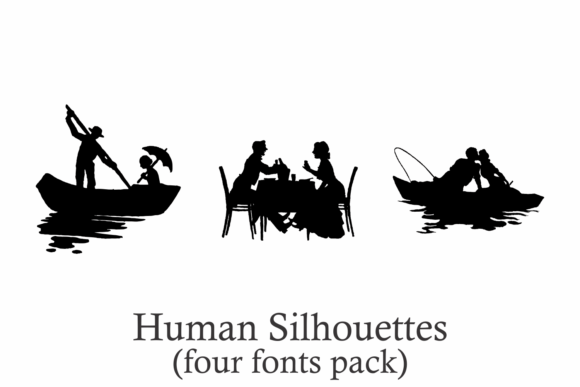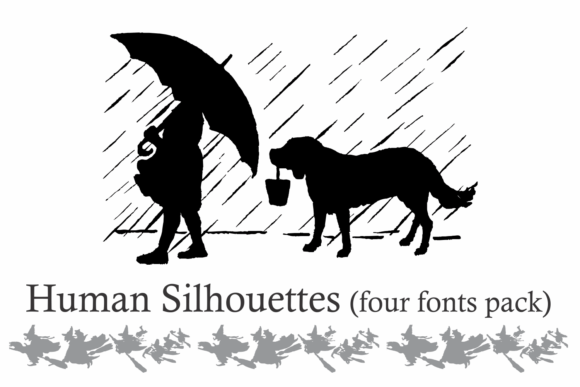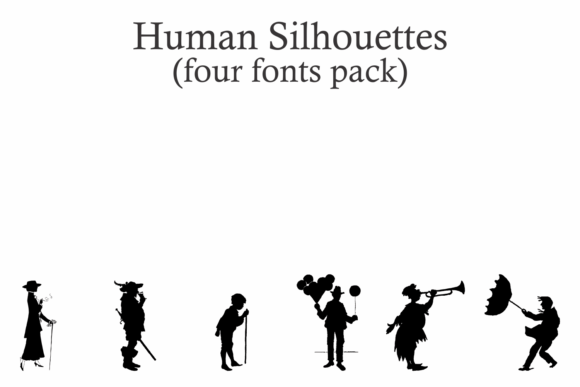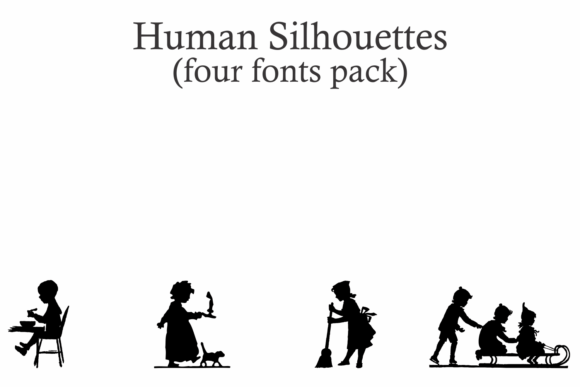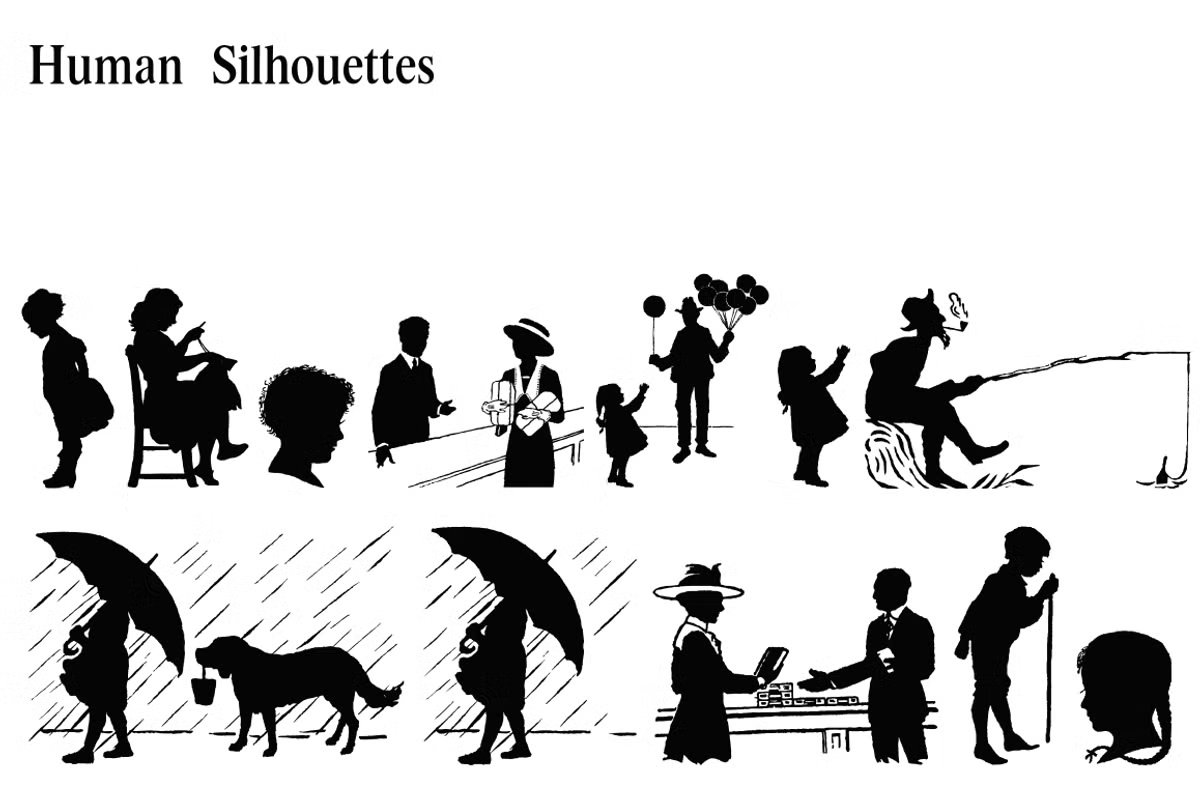
About Human Silhouettes
Human Silhouettes are inspired by people and daily situations. It includes a wide variety of topics and may be used individually or in combination with wide range of design possibilities. An attractive pack by Intellecta Design, with four fonts and over…